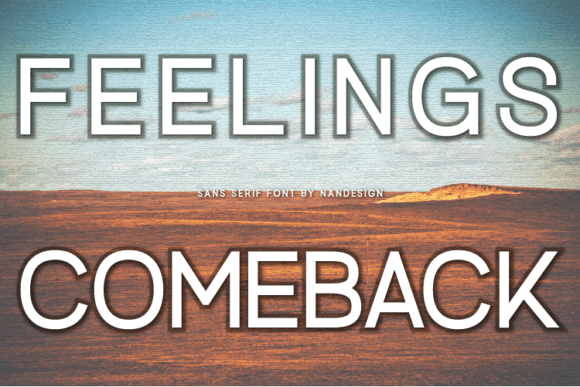
Introducing Feelings Comeback Font: Elevate Your Designs with a Stunning Sans Serif Font
Are you tired of using the same old fonts in your designs? Look no further! Feelings Comeback Font is here to revolutionize the way you create stunning headings, gorgeous invitations, and breathtaking logos. This beautiful sans serif font is designed to complement every project you’re working on, and we’re excited to dive into its amazing features.
Aesthetic Appeal of Feelings Comeback Font
Feelings Comeback Font boasts a clean and modern sans serif design that instantly adds a touch of sophistication to any project. Its sleek lines, precise curves, and perfectly balanced proportions make it a versatile font that’s perfect for a wide range of applications. Whether you’re designing a logo, creating a social media graphic, or crafting a beautiful invitation, this font is sure to impress.
Key Features of Feelings Comeback Font
- Stunning sans serif design: A modern and clean font that’s perfect for creating beautiful headings, logos, and more.
- Highly versatile: Use it for a wide range of projects, from invitations and logos to social media graphics and more.
- Easily readable: The font’s clear and precise design ensures that your text is always easy to read.
- Perfectly balanced proportions: The font’s carefully crafted proportions create a beautiful visual harmony.
Use Cases for Feelings Comeback Font
So, how can you use Feelings Comeback Font to elevate your designs? Here are a few inspiring ideas to get you started:
- Logos and branding: Create a stunning logo that perfectly represents your brand’s personality and values.
- Invitations and events: Design beautiful invitations, save-the-dates, and event materials that will leave a lasting impression.
- Social media graphics: Craft eye-catching social media graphics that showcase your brand’s style and personality.
- Headings and titles: Use Feelings Comeback Font to create stunning headings and titles that add a touch of elegance to your designs.
Why Choose Feelings Comeback Font?
With so many fonts available, why should you choose Feelings Comeback Font? Here are a few compelling reasons:
- Unique and distinctive: Stand out from the crowd with a font that’s both modern and unique.
- Easily customizable: Experiment with different colors, sizes, and styles to make the font your own.
- High-quality design: Enjoy a professionally designed font that’s been crafted with attention to detail.
Tips for Using Feelings Comeback Font
To get the most out of Feelings Comeback Font, here are a few expert tips:
- Experiment with different sizes: Play with different font sizes to create visual hierarchy and add depth to your designs.
- Pair it with other fonts: Combine Feelings Comeback Font with other fonts to create a unique and eye-catching typography.
- Use it consistently: Use Feelings Comeback Font consistently across your designs to create a strong brand identity.
Feelings Comeback Font is a stunning sans serif font that’s sure to elevate your designs to the next level. With its clean and modern design, versatility, and high-quality craftsmanship, it’s the perfect choice for designers and crafters looking to create beautiful headings, logos, invitations, and more. So why wait? Download Feelings Comeback Font today and start creating stunning designs that will leave a lasting impression!